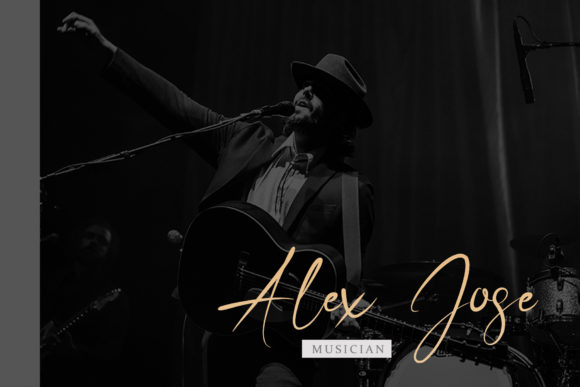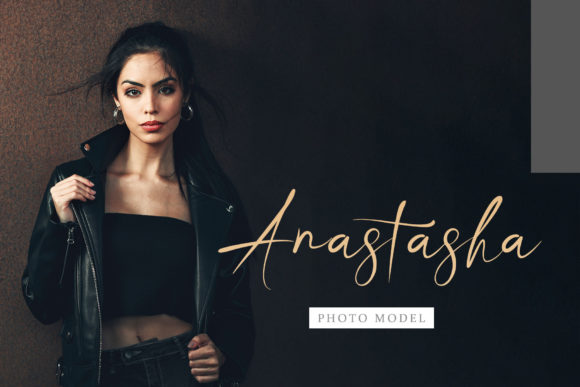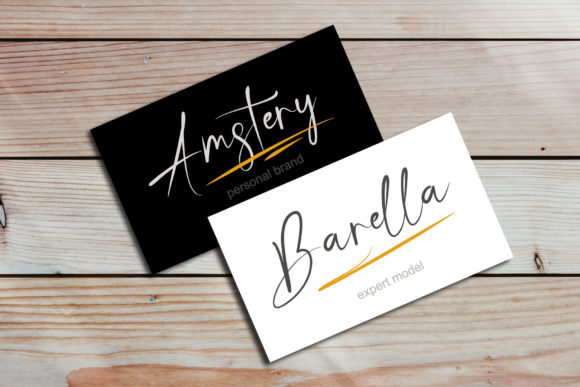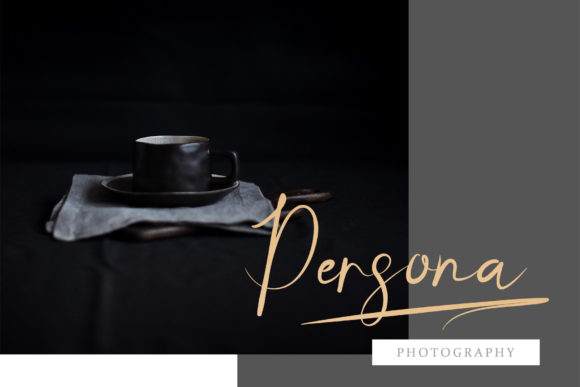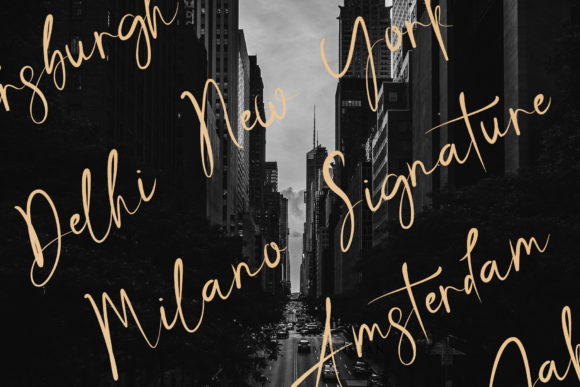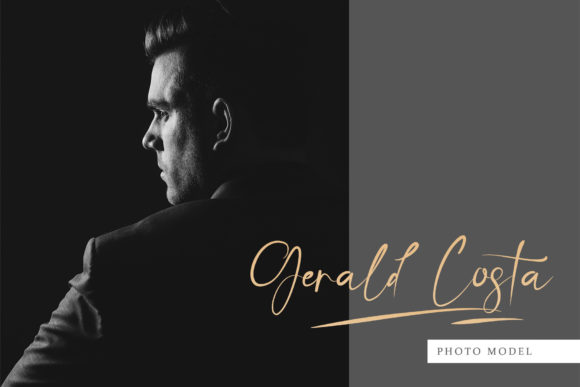
The Designer’s Delight: Exploring the Elegance of Gabriel Auste Font
I’ll never forget the time I was working on a wedding invitation project, and my client asked for a font that exuded elegance and sophistication. I scoured the internet, tried out countless fonts, but nothing seemed quite right. That was until I stumbled upon Gabriel Auste Font. It was love at first sight! 💕 The refined script font has a classy, modern look that’s perfect for a variety of design projects. In this article, I’ll share my experience with Gabriel Auste Font, its features, and how to make the most of it in your designs.
A Personal Review: What I Love About Gabriel Auste Font
Here’s what makes Gabriel Auste Font a standout in my book:
- ✨ Elegant and refined: The font’s script style is perfect for creating sophisticated designs that impress.
- ✅ Versatile: Use it for logos, branding, invitations, stationery, wedding designs, social media posts, and more!
- 💫 Modern look: The font’s clean lines and subtle curves give it a fresh, contemporary feel.
- 👍 Easy to read: Despite its elegant style, Gabriel Auste Font remains highly legible, even at smaller sizes.
While Gabriel Auste Font is an excellent choice, there are a few things to keep in mind:
- 🤔 Limited use in body text: Due to its script nature, Gabriel Auste Font might not be the best choice for lengthy body text. It’s better suited for headings, titles, or short paragraphs.
- ⚠️ Kerning issues: As with any font, you might encounter kerning issues, especially when using it at smaller sizes or in combination with other fonts.
Designer Inspiration: The Story Behind Gabriel Auste Font
Gabriel Auste Font was designed by a talented typographer who aimed to create a font that embodies elegance and refinement. The designer’s inspiration came from classic script fonts, with a modern twist to make it fresh and versatile. The result is a beautiful font that’s perfect for a wide range of design projects.
| Font Name | Gabriel Auste Font |
| Author | Creaditive Design |
| What type of projects is Gabriel Auste Font best suited for? | Gabriel Auste Font is perfect for logos, branding, invitations, stationery, wedding designs, social media posts, and more! |
| Is Gabriel Auste Font easy to read? | Yes, despite its elegant style, Gabriel Auste Font remains highly legible, even at smaller sizes. |
| Can I use Gabriel Auste Font for body text? | While it’s possible, Gabriel Auste Font is better suited for headings, titles, or short paragraphs due to its script nature. |
| Does Gabriel Auste Font support OpenType features? | Yes, Gabriel Auste Font supports OpenType features, such as stylistic alternates, glyphs, and more. |